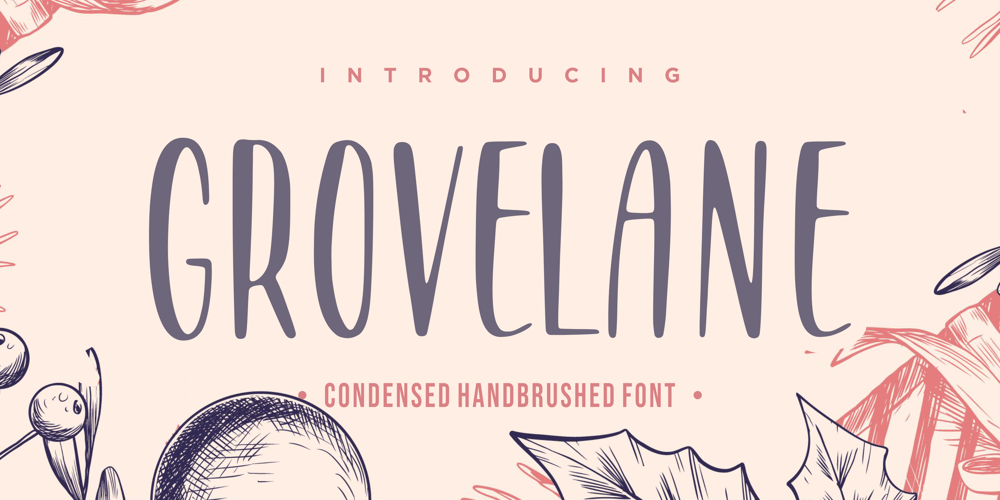
Grovelane
Grovelane font
Grovelane Font Family was designed by Restu Angga and published by Balpirick. Grovelane contains 1 styles and family package options. GROVELANE is a Condensed Handbrushed Font.Grovelane is a simple and clean display font. It is the ideal choice for a variety of designs, so add it confidently and you will love the relaxed and neat final result..GROVELANE also multilingual support.Enjoy the font, feel free to comment or feedback, send me PM or email.Thank you!